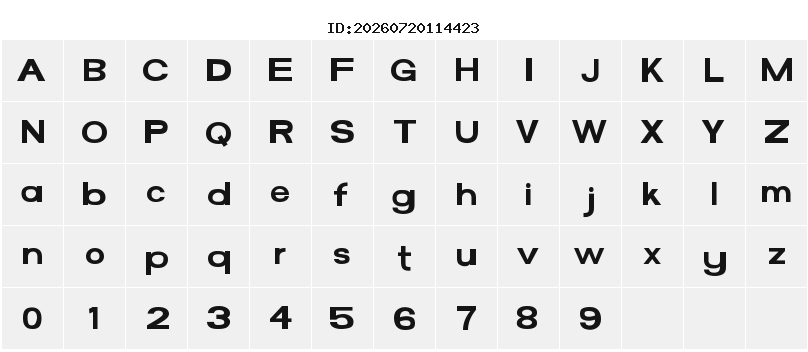
FunZone Two Alternates Preview
• Font Name: FunZone Two Alternates
• Full Font Name: FunZone Two Alternates Regular
About FunZone Two Alternates.ttf
FunZone Two Alternates.ttf is a modern, elegant sans-serif font designed for ultimate readability and visual harmony. Perfect for branding, headlines, web design, and print materials.